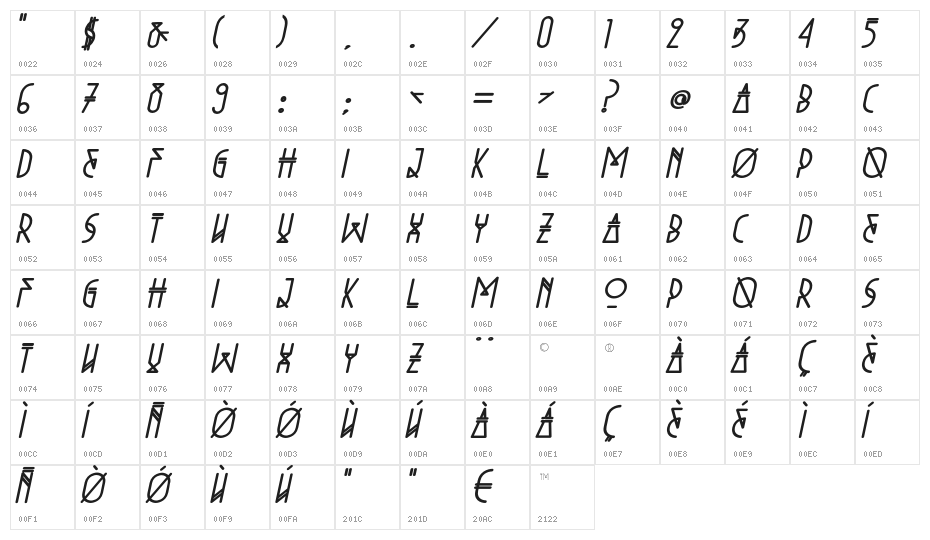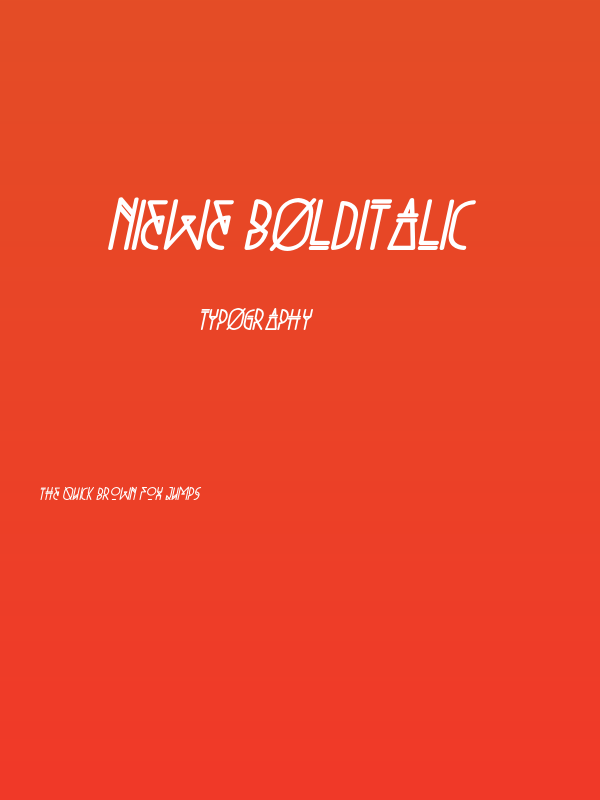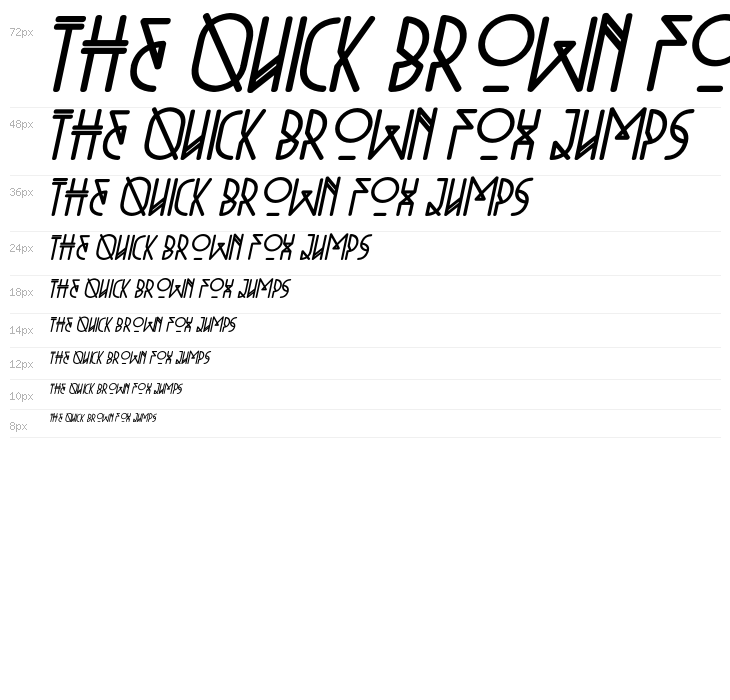
Niewe-BoldItalic Font
Niewe-BoldItalic Description
This font features a bold and italicized style with a unique geometric flair. The characters are constructed with angular lines and sharp edges, giving it a futuristic and dynamic appearance. The uppercase letters are particularly striking, with some incorporating triangular elements that add to the modern aesthetic. The lowercase letters maintain the same angular design, ensuring consistency throughout. Numbers and special characters follow the same stylistic approach, making the font versatile for various applications. The overall design is bold and eye-catching, suitable for projects that require a strong visual impact.
| Proposed Projects | Ideal for branding, posters, and digital media where a modern and striking look is desired. |